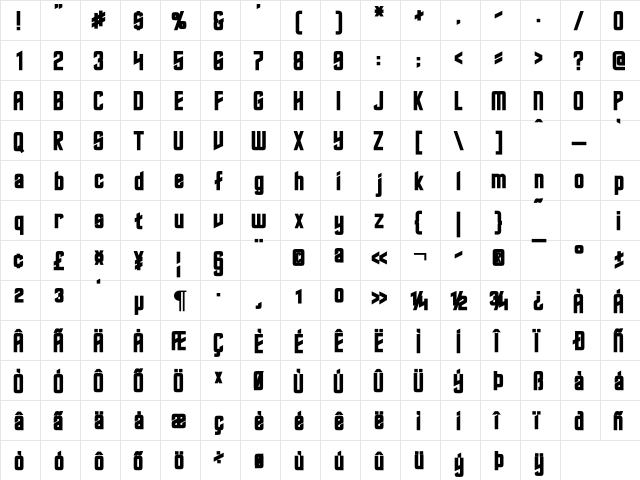
Roddenberry Bold
Design Context for Roddenberry Typeface
Roddenberry is a composed and adaptable typeface that performs quietly and consistently across a wide range of design contexts. The heavy weight commands attention and anchors typographic hierarchies.
Pro Tip: Pair Roddenberry with a font of contrasting weight or personality to build a more expressive typographic hierarchy.